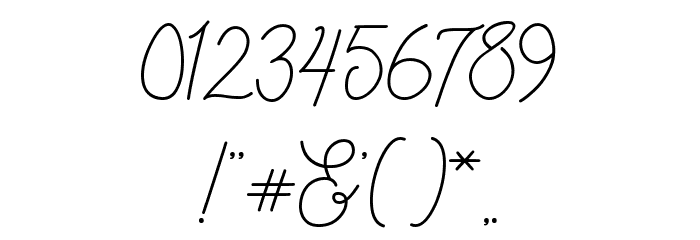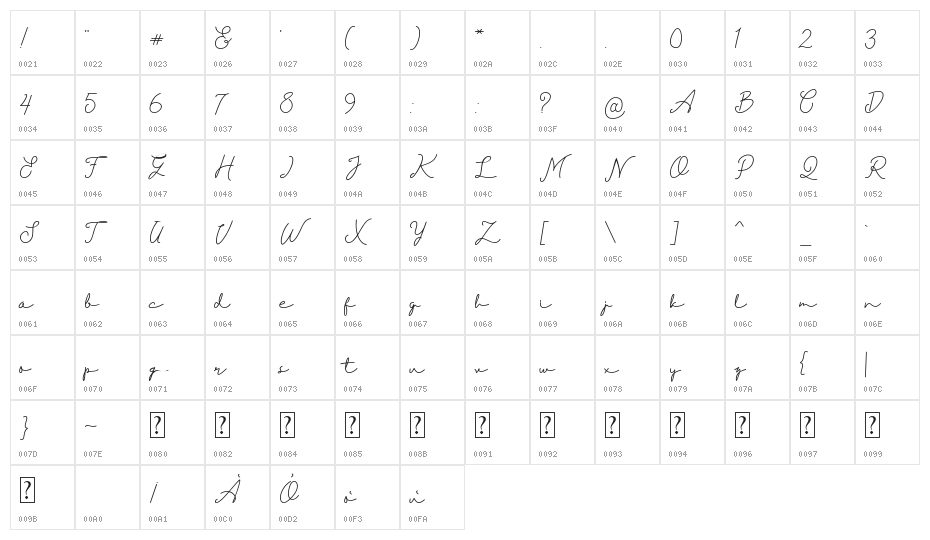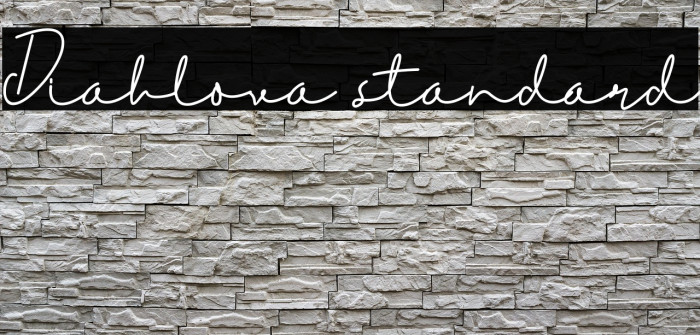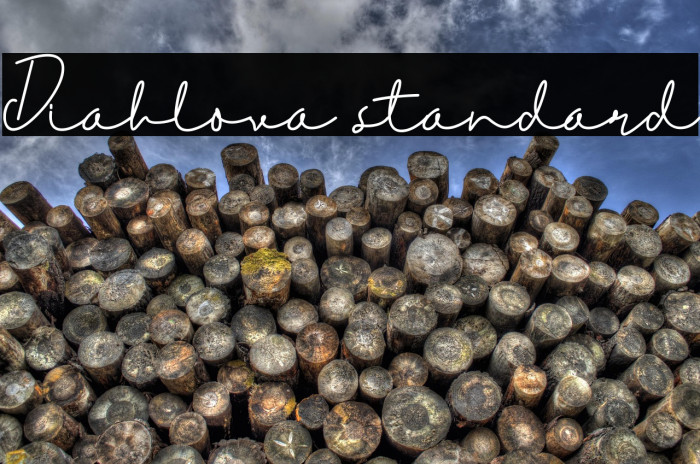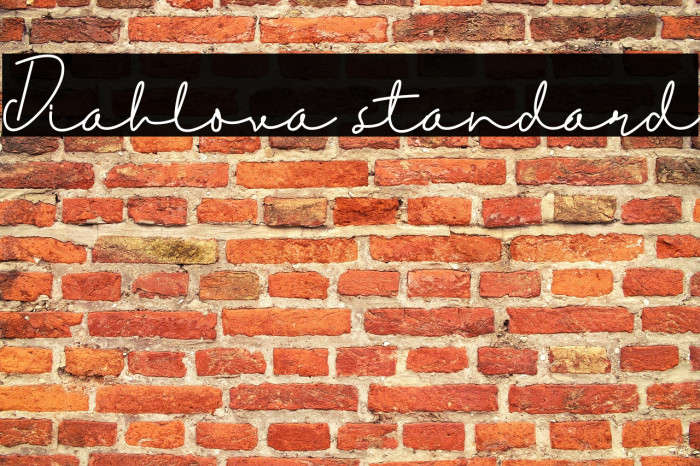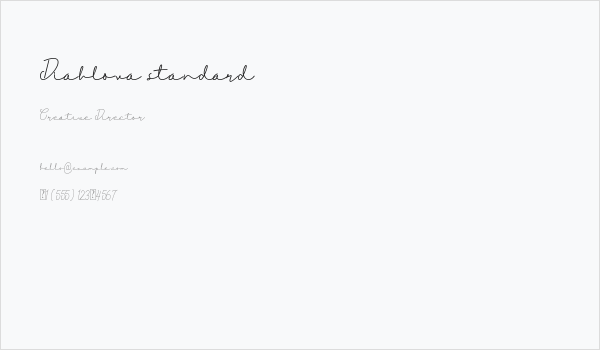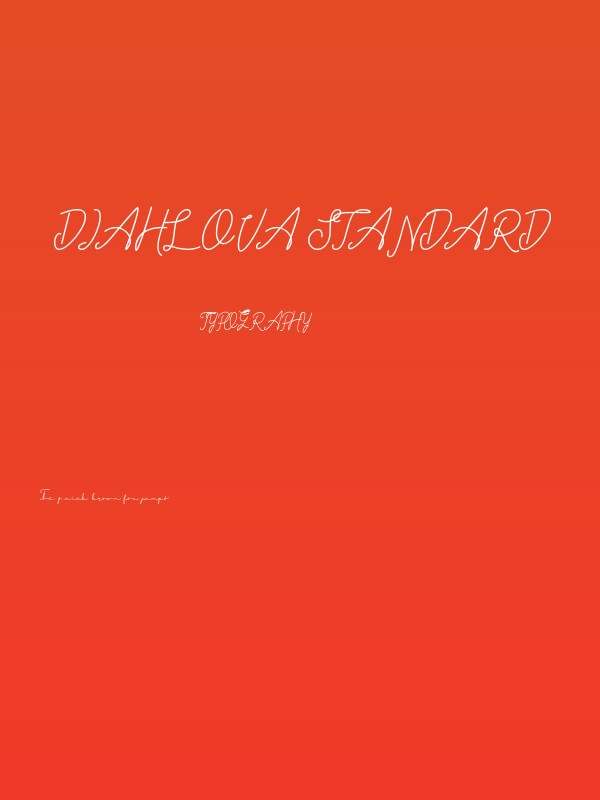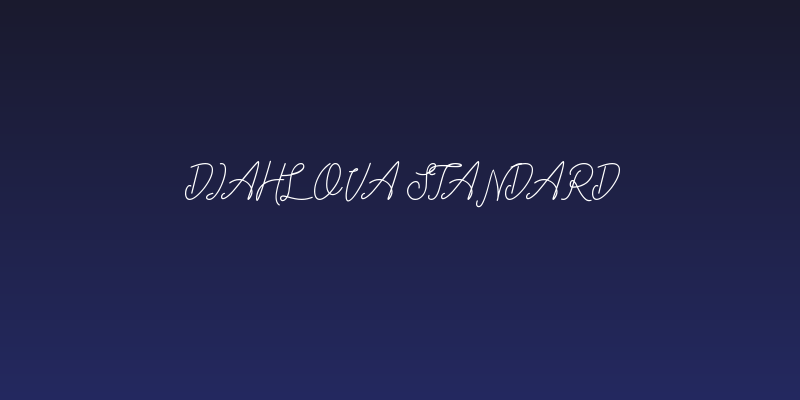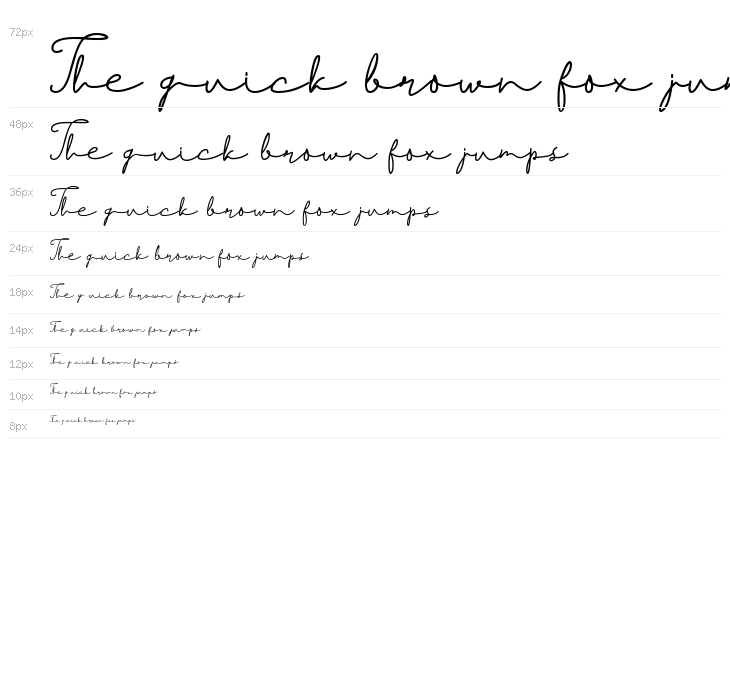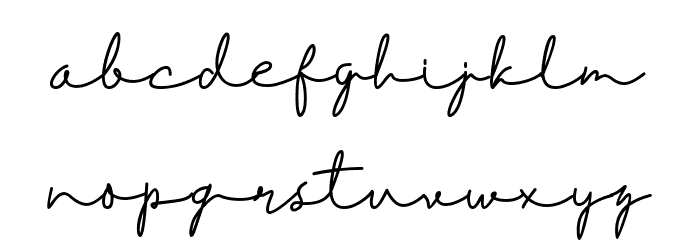
Diahlova standard Font
Diahlova standard Description
This font exudes elegance and sophistication with its fluid, cursive style. The characters are gracefully connected, creating a seamless flow that mimics natural handwriting. The uppercase letters are slightly more elaborate, with gentle loops and curves that add a touch of flair. The lowercase letters maintain a consistent rhythm, enhancing readability while preserving the font's artistic charm. The numerals are clear and balanced, complementing the overall aesthetic. Special characters are thoughtfully designed to match the font's style, ensuring cohesion across all text elements. This font is perfect for projects that require a personal, yet polished touch.
| Use Case | Logos, Invitations, Personal branding |
| Proposed Projects | Ideal for wedding invitations, personal branding, greeting cards, and elegant stationery. |